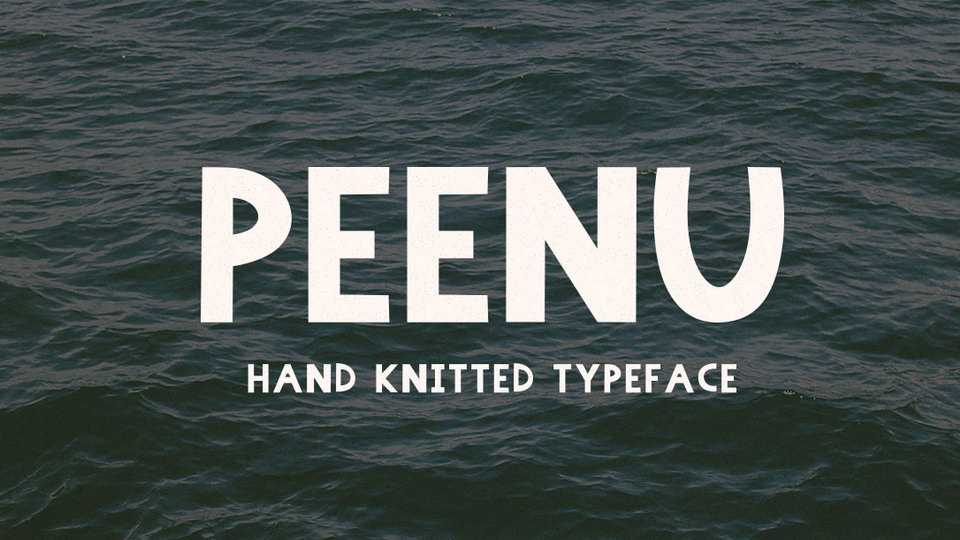
Download Peenu font, a lovely hand knitted allcaps typeface inspired by sharp paper cuts. Perfect for crafts and kids designs, toys, games, posters, apparel prints and other creative designs.